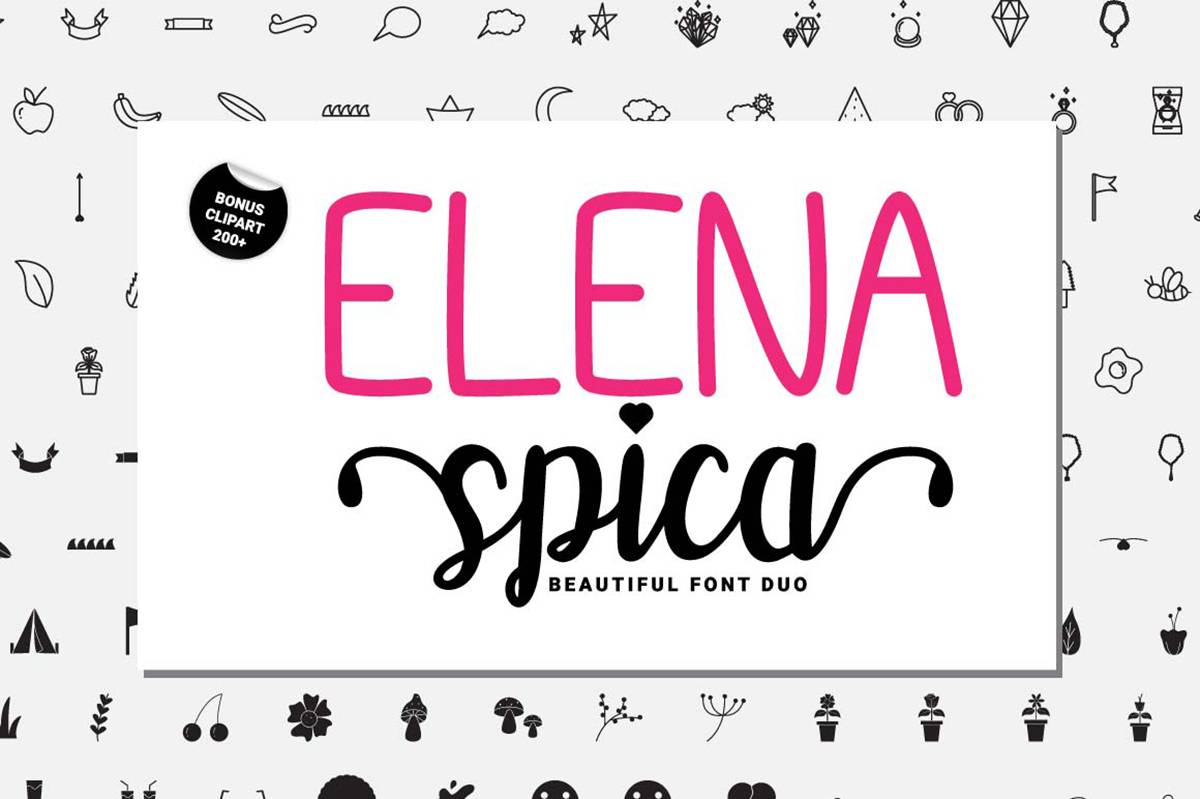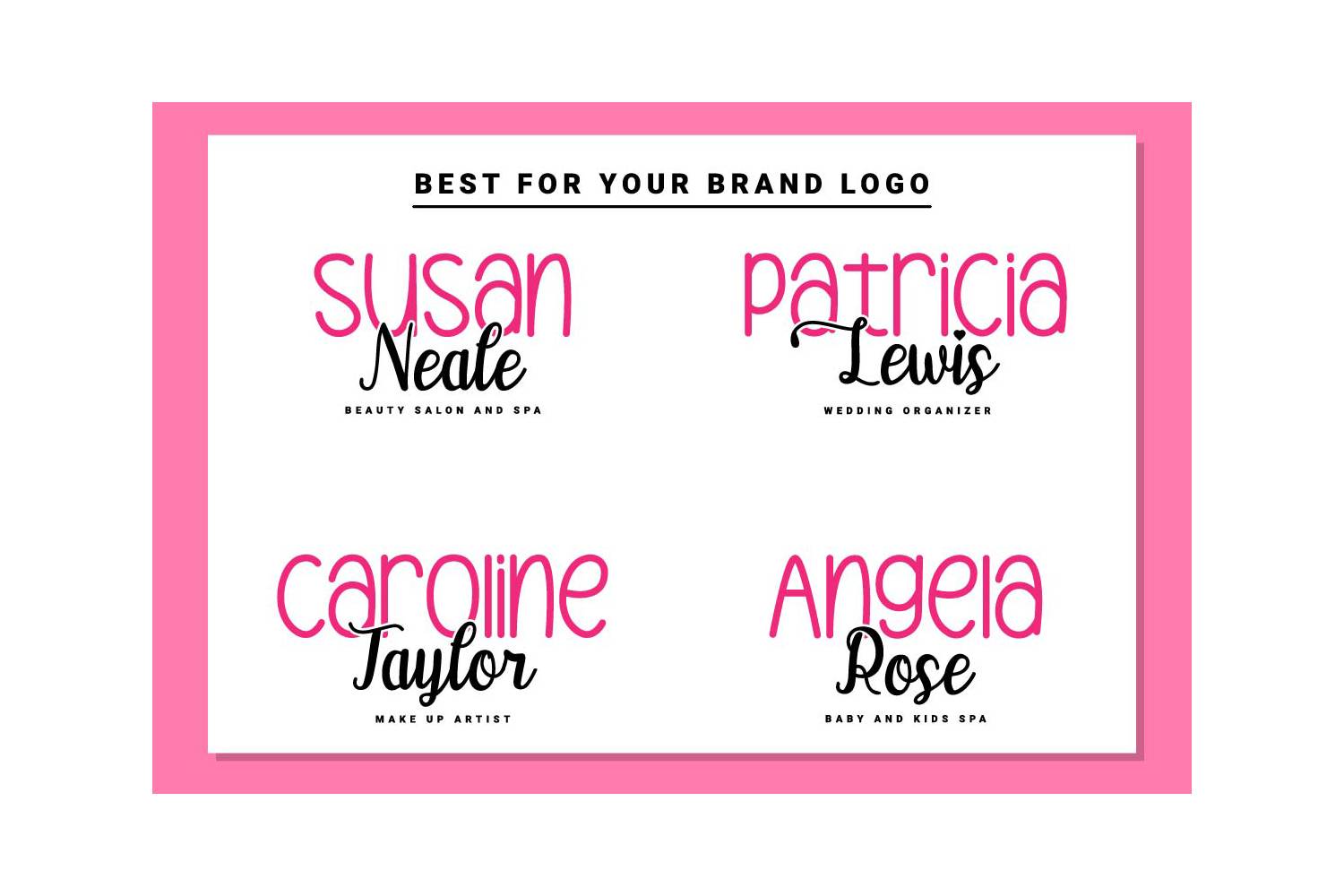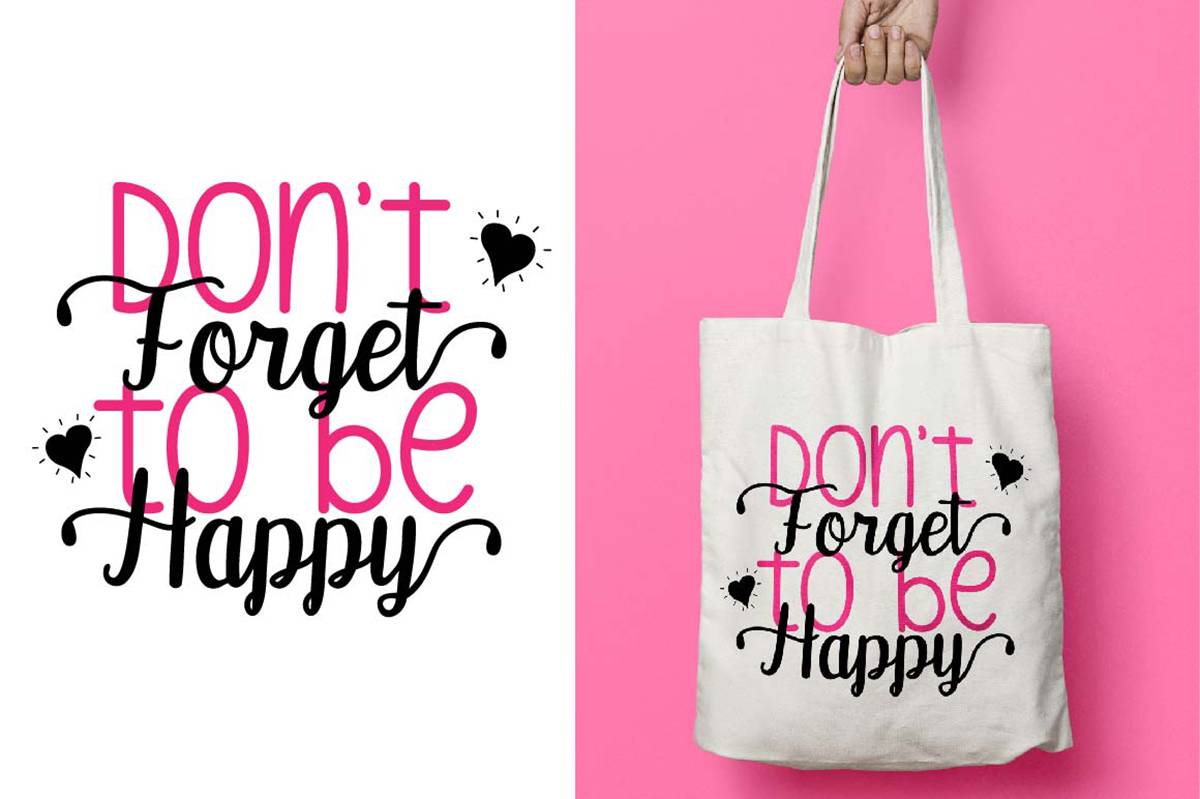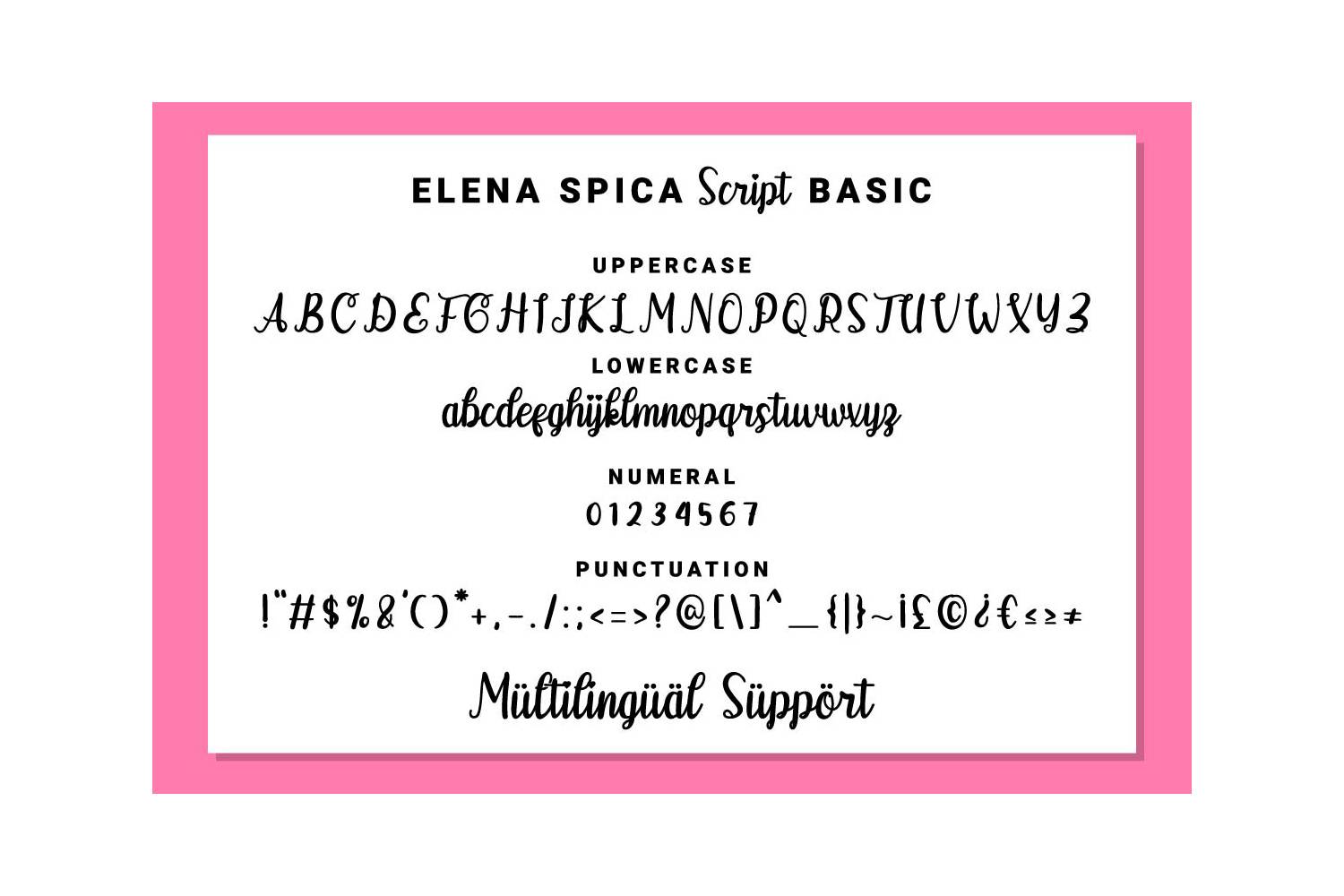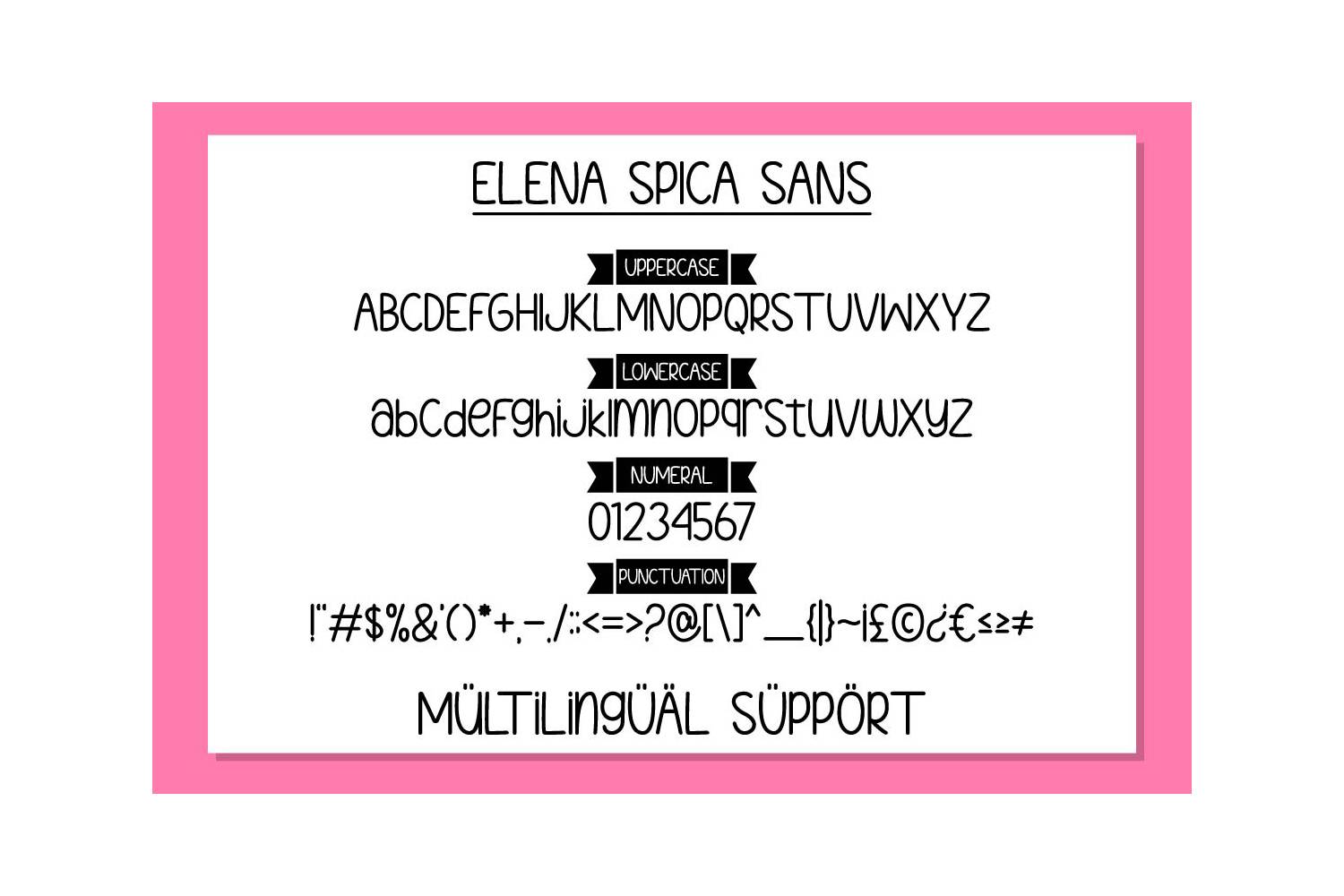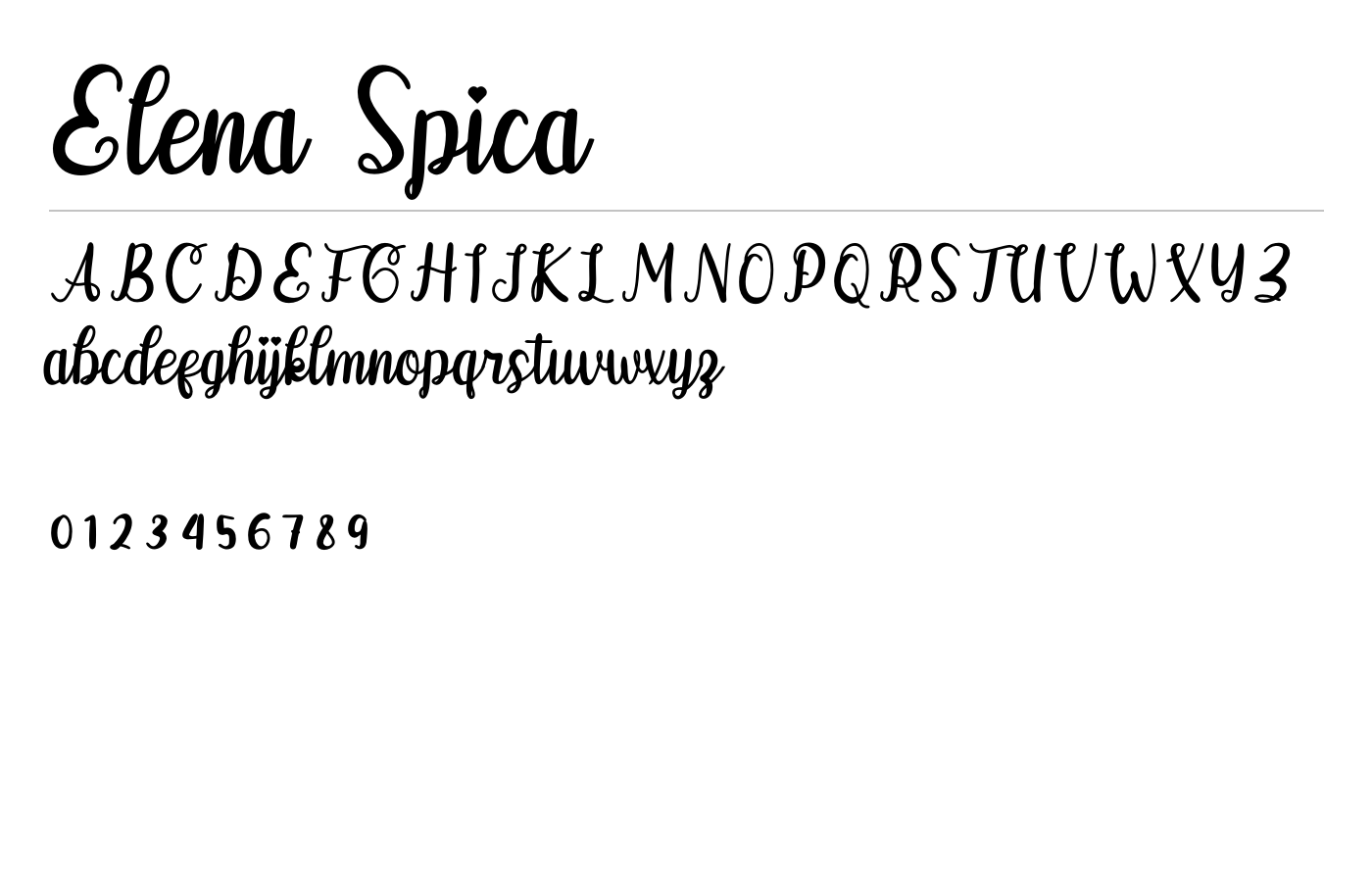
Elena Spica is a charming script font with a playful yet elegant feel, featuring smooth, rounded strokes and delicate heart-shaped details that add a whimsical touch. Its balanced weight and flowing, hand-lettered style make it perfect for branding, invitations, and packaging that aim for a friendly and romantic vibe. This font works best in headlines and logos where a warm, approachable personality is desired.
Elena Spica Font
About Elena Spica Font
| Font family | Elena Spica Font |
| Designer | Prio Nurokhim Aji |